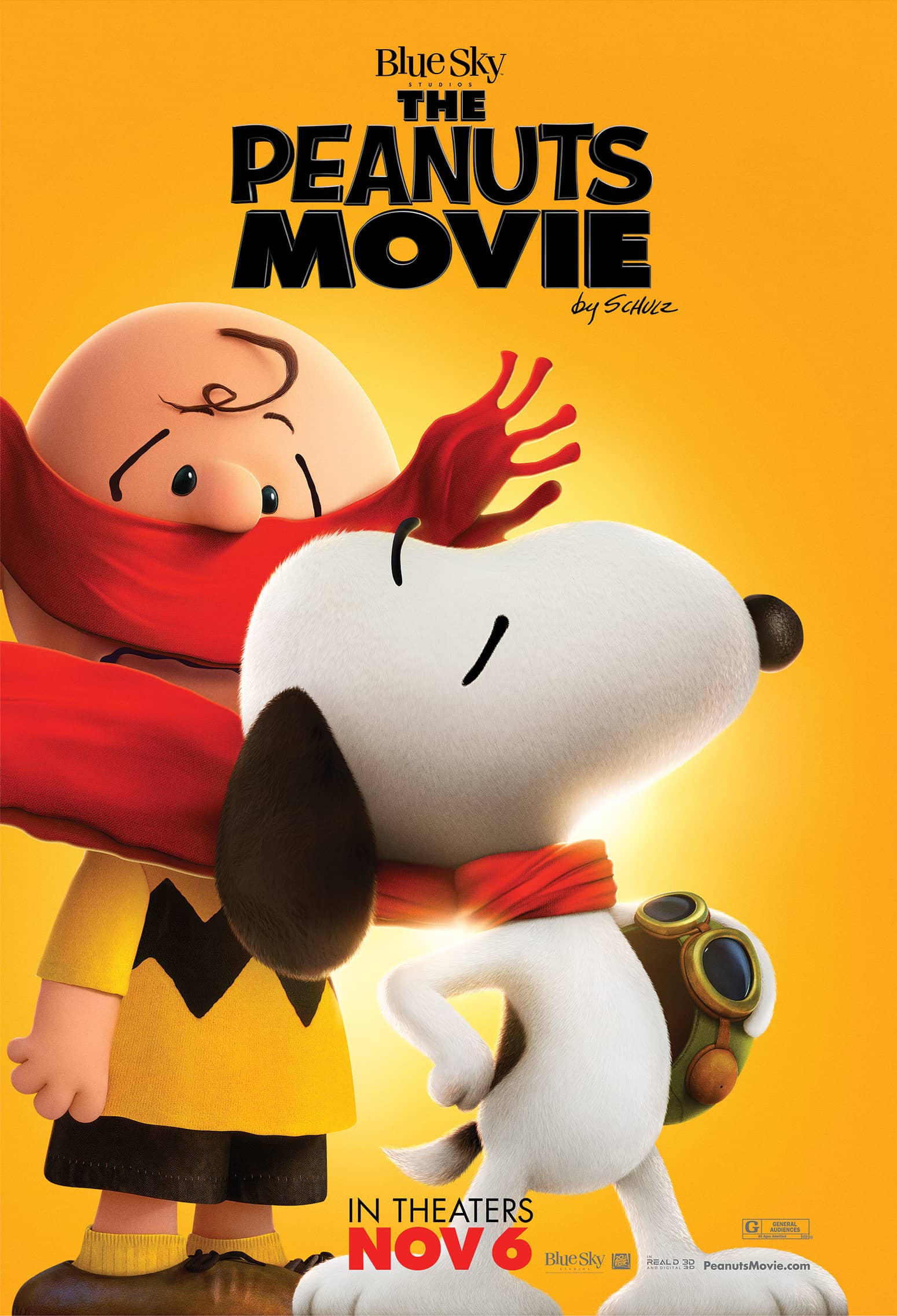
The Peanuts Movie Font
AnimationThe Peanuts Movie is a 2015 American computer-animated comedy film based on Charles M. Schulz's comic strip Peanuts, produced by Blue Sky Studios and distributed by 20th Century Fox. In the film, Charlie Brown tries to pursue the cute Red-Haired Girl in the neighborhood, while Snoopy writes a book about saving his co-pilot and love interest Fifi from the Red Baron.
The Peanuts Movie title in the poster features “PEANUTS” in comic lettering, created by Blambot for Charles Shultz Creative Associates. The lettering is very much like a font named Snoopy. The other text in the title seems to be Futura Extra Black. For the text “Blue Sky” above the film title, it is set in ITC Fenice Regular with slight modifications.